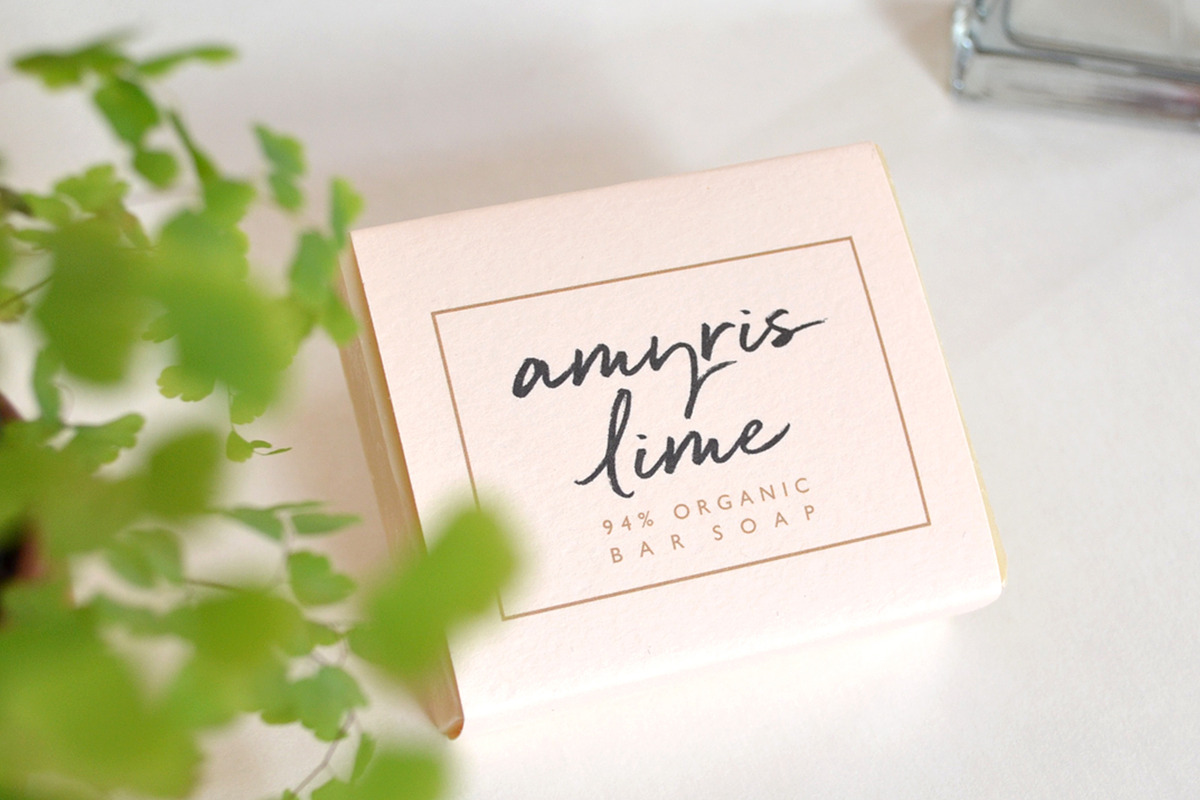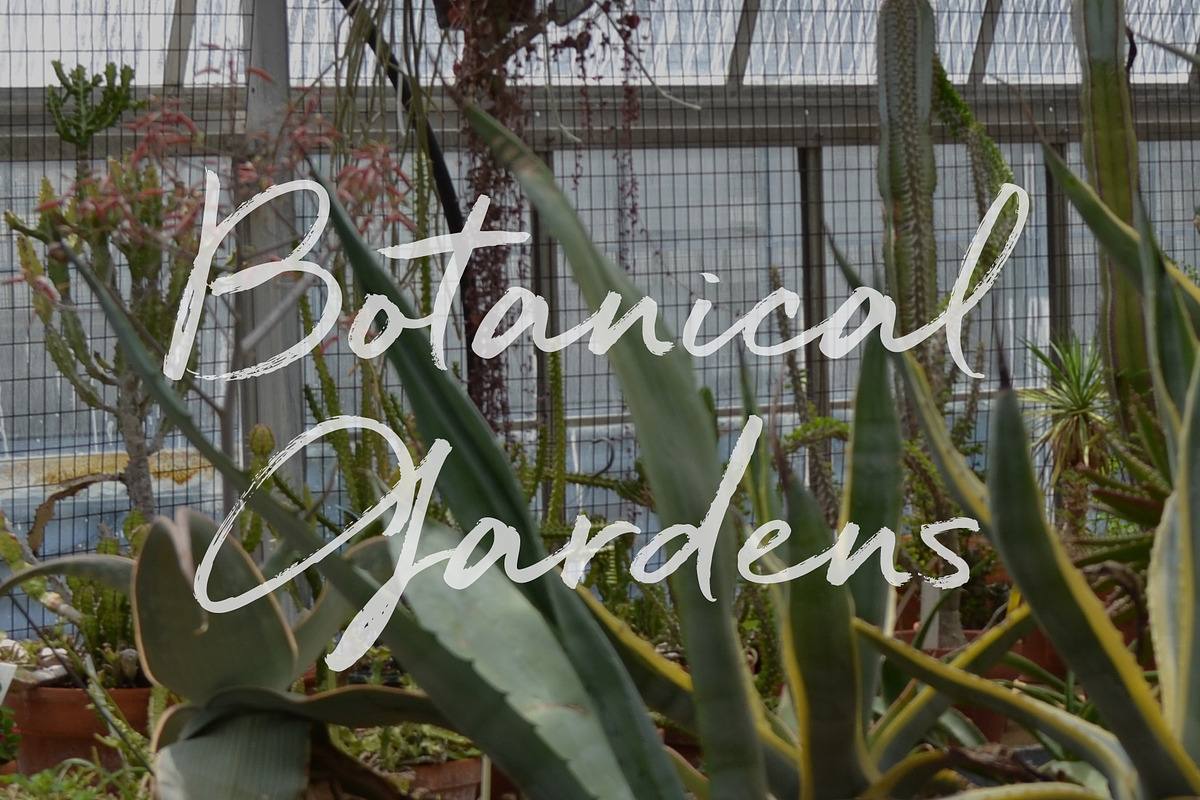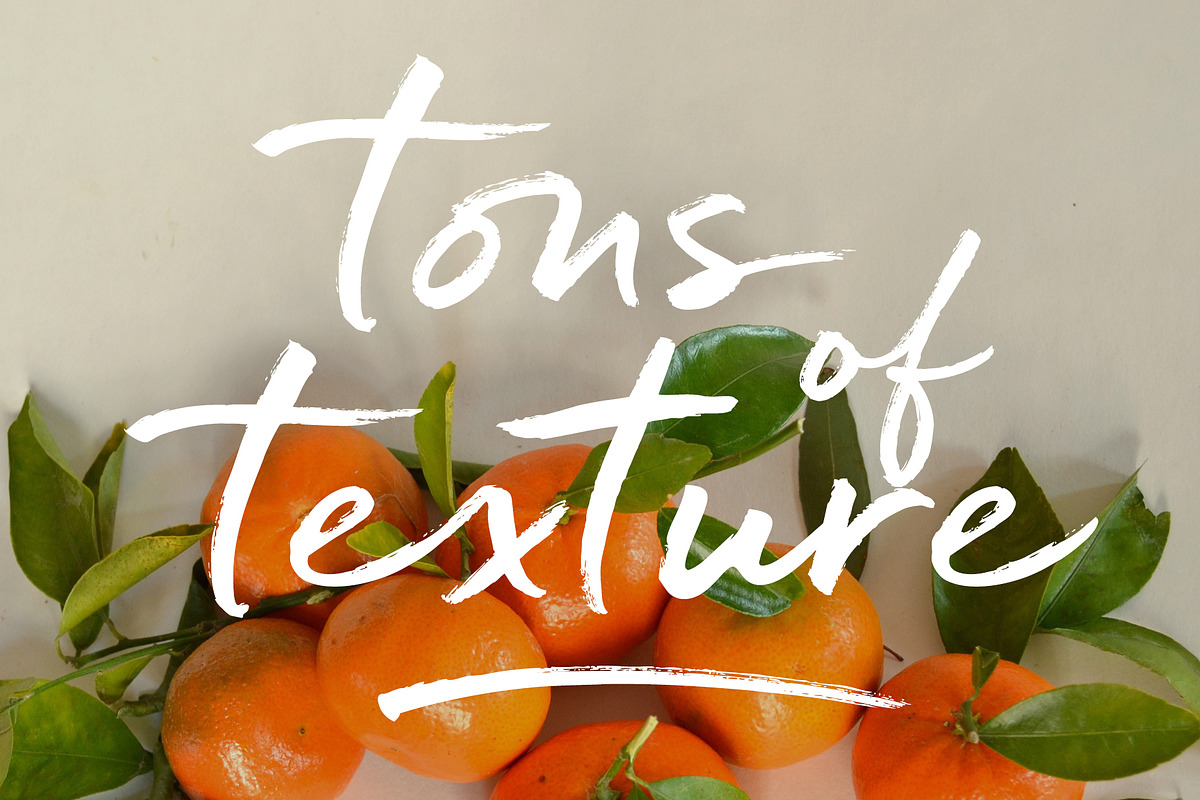
Quickbrush Font
Quickbrush is a handwritten script with a bold, gender-neutral vibe. Its unique heft allows Quickbrush to layer so well over photos and other backgrounds. Contextual alternates for lowercase letters mimic starting and ending marks, to make each word look truly written by hand. It is perfect for logotype, quote, headline, website, packaging, wedding card, and much more!